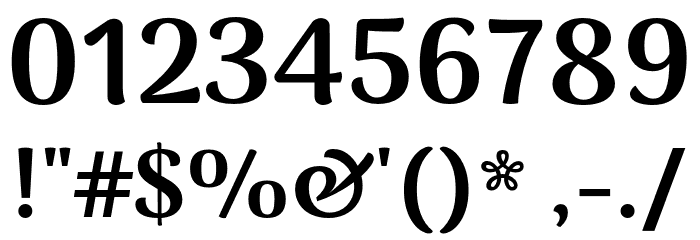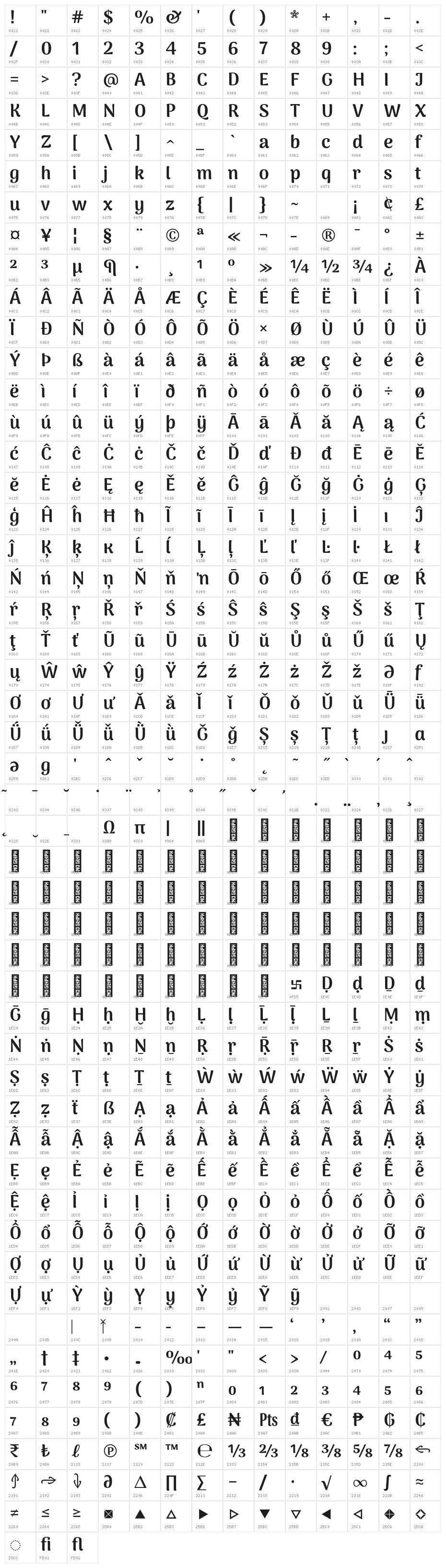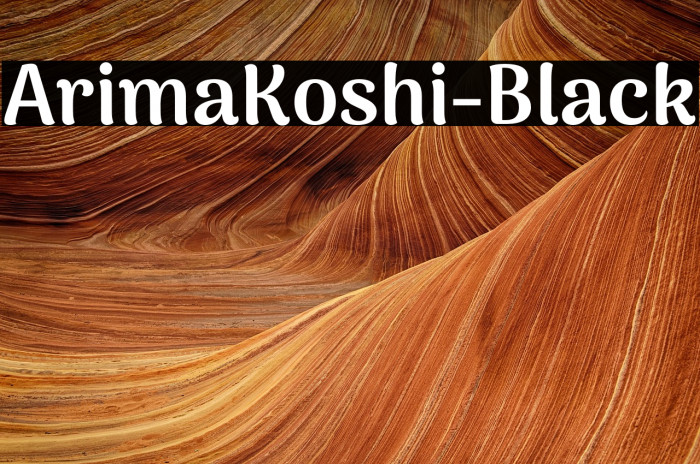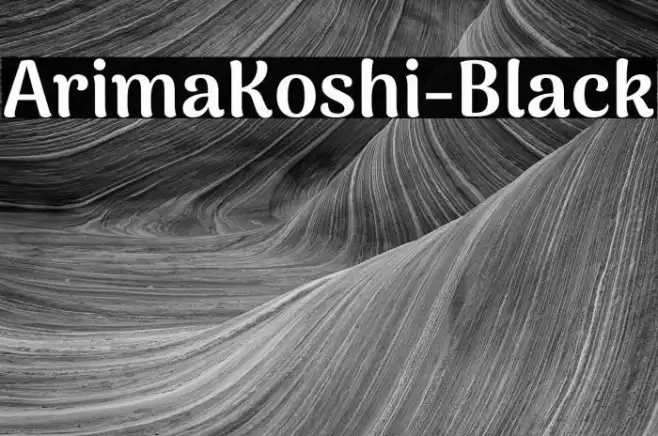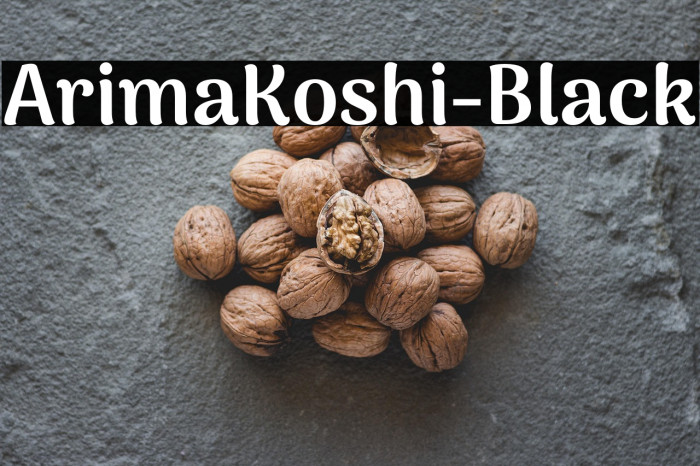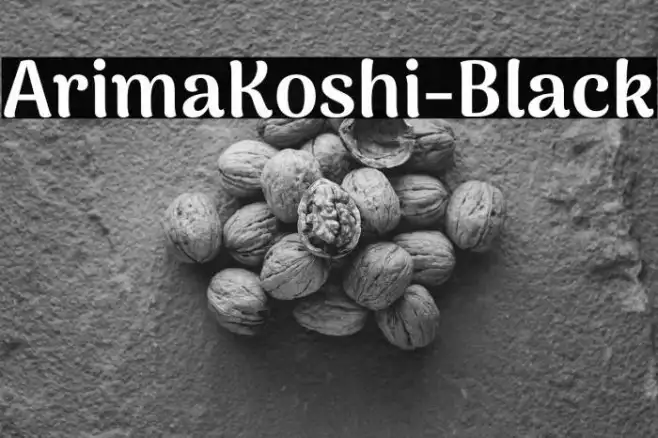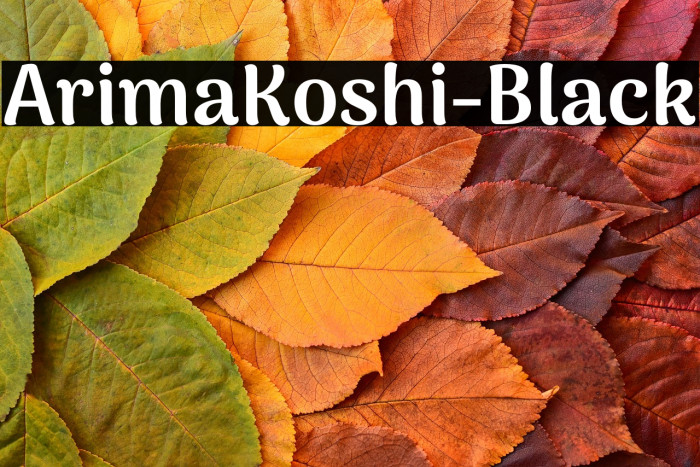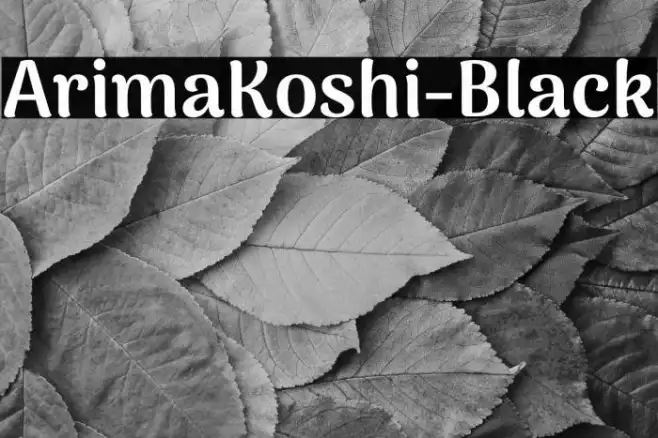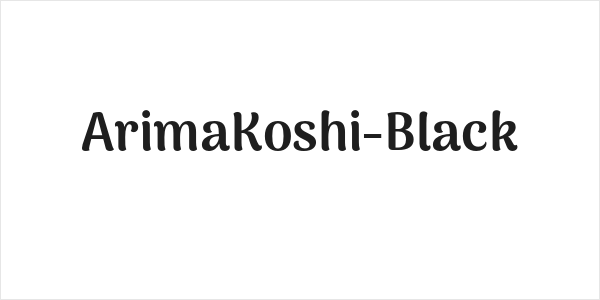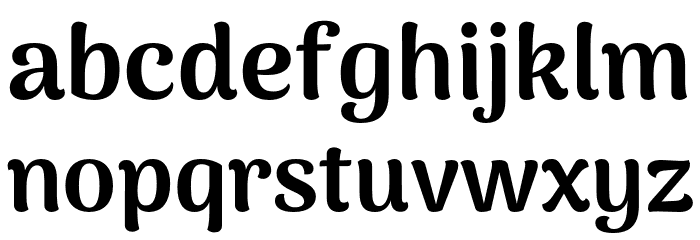
ArimaKoshi-Black Font
ArimaKoshi-Black Description
This typeface features a bold and playful design with rounded edges and a friendly appearance. The characters are well-balanced, with a consistent stroke width that gives it a cohesive look. The uppercase letters are slightly taller than average, providing a sense of authority, while the lowercase letters maintain a smooth and approachable feel. The numerals are clear and easy to read, making them suitable for various applications. Special characters are thoughtfully designed, adding to the font's versatility. Overall, this font exudes a modern yet approachable vibe, making it ideal for a wide range of creative projects.
| Proposed Projects | Ideal for branding, advertising, children's books, and playful design projects. |